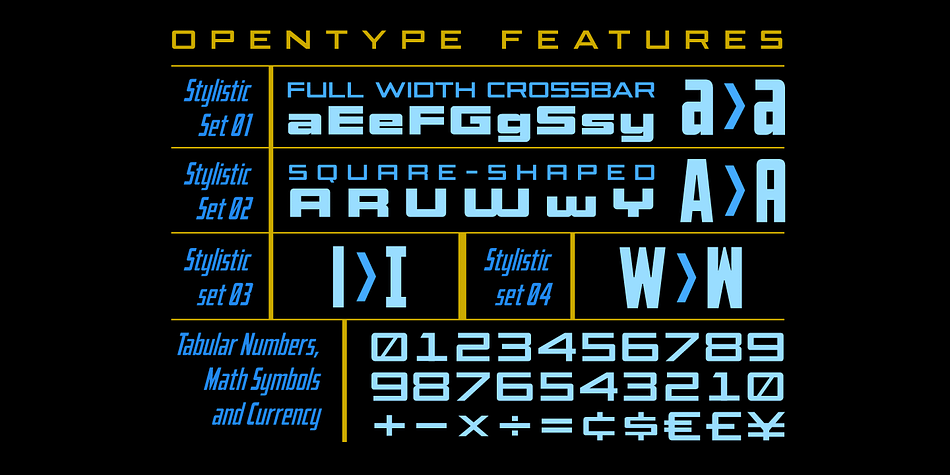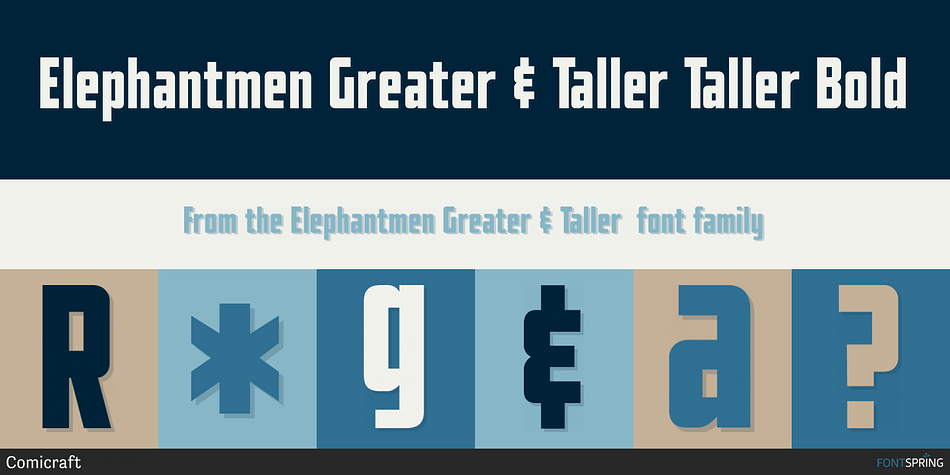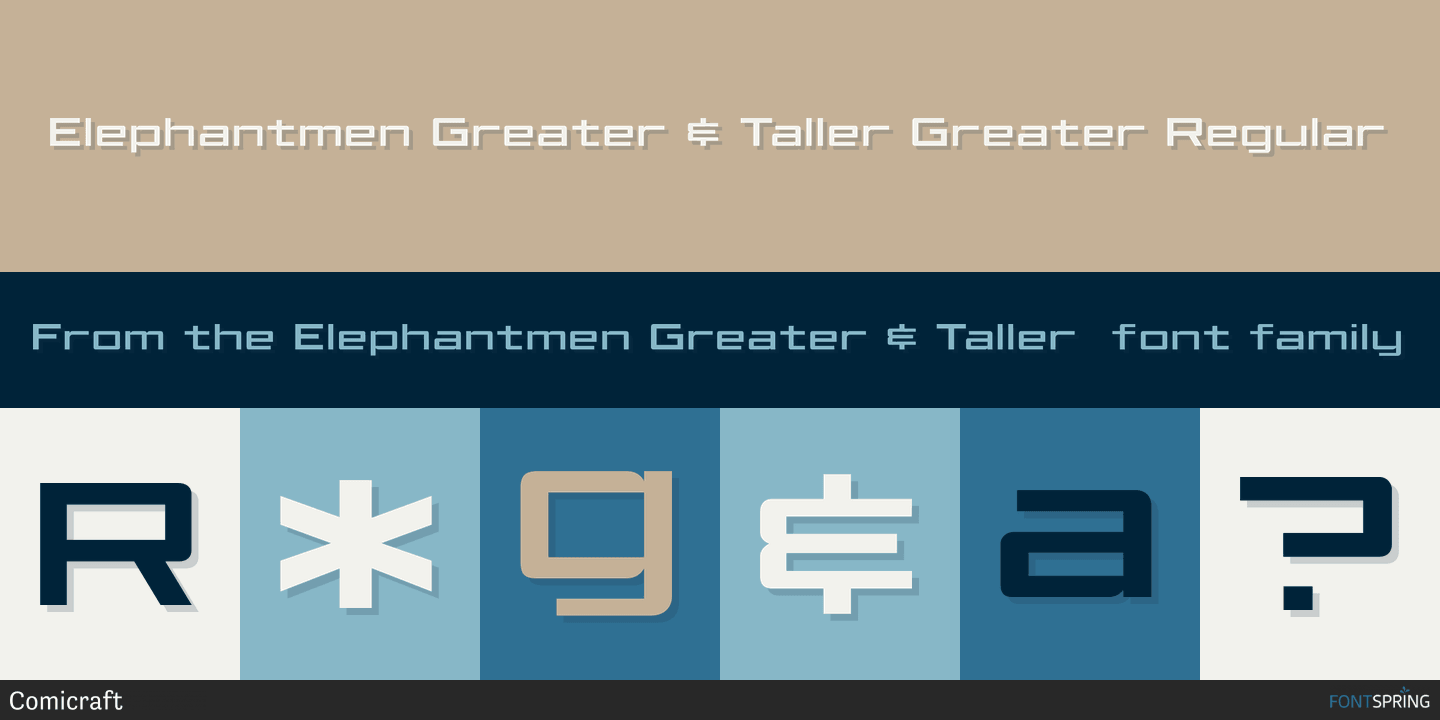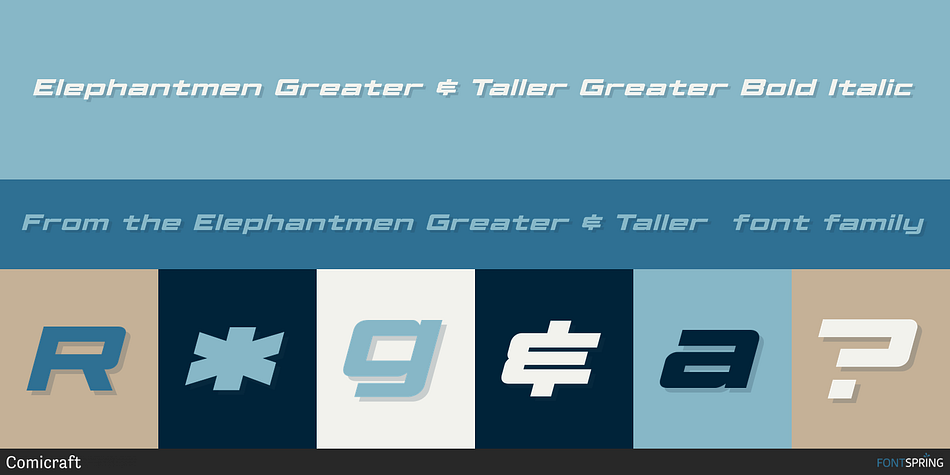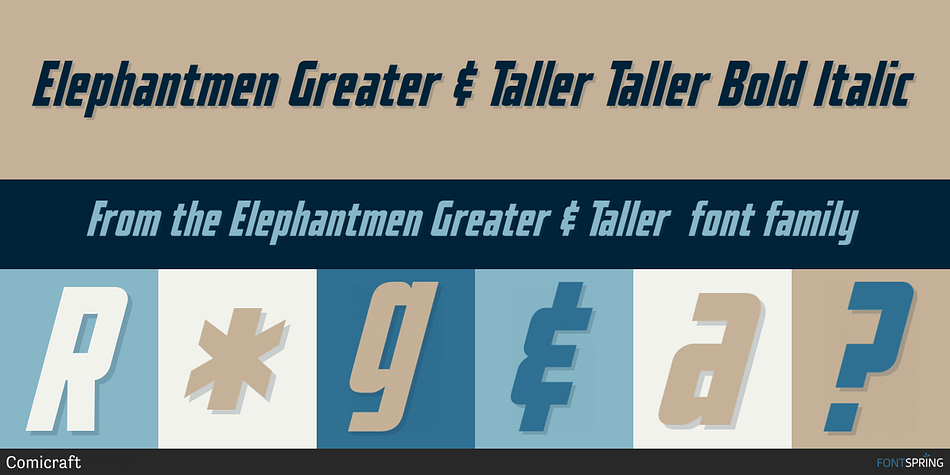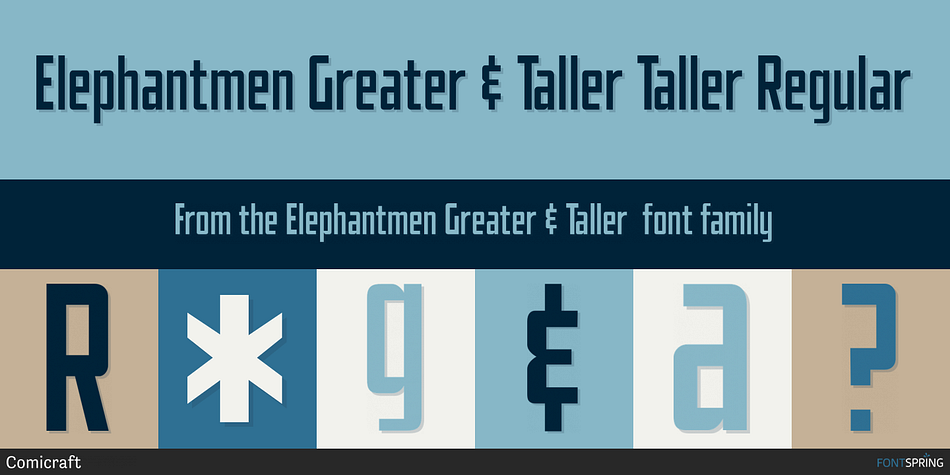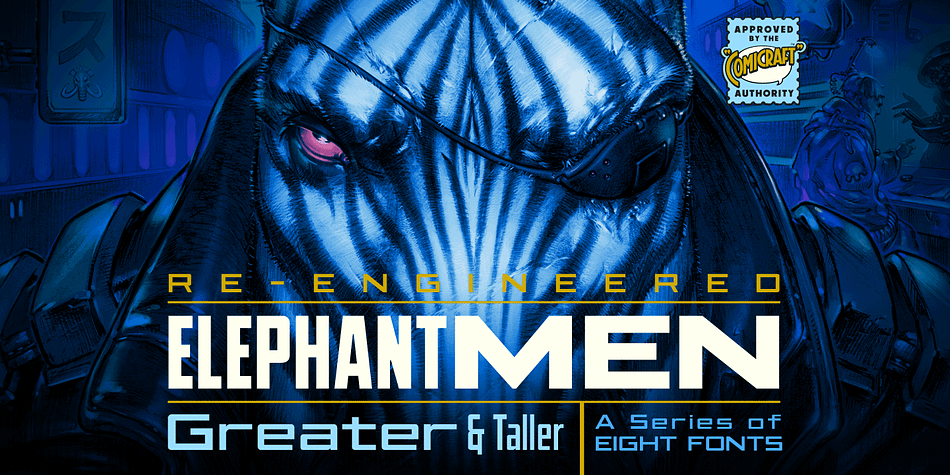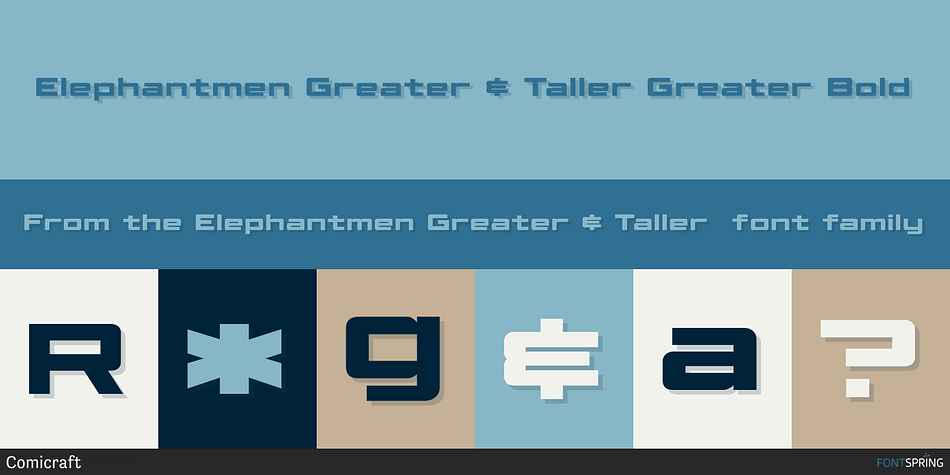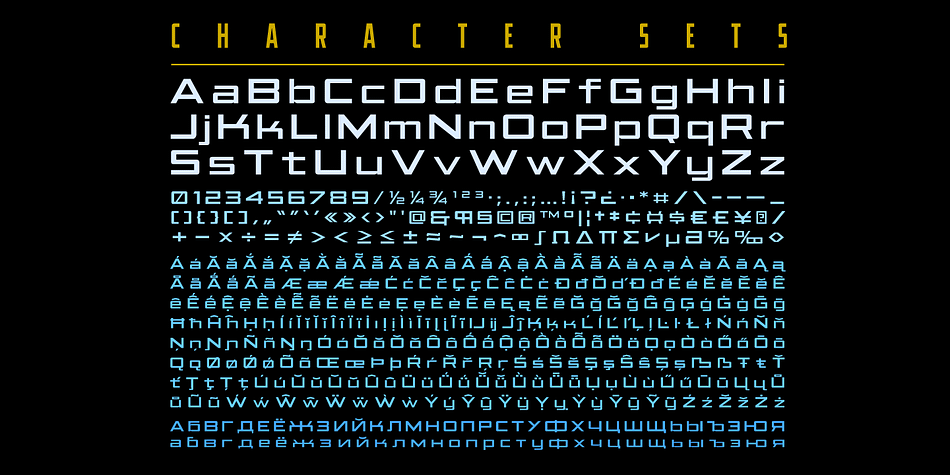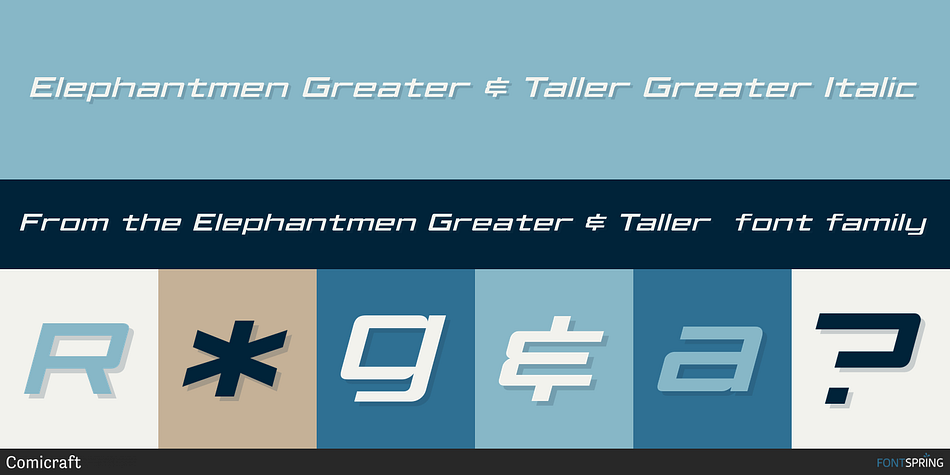
Designed by John Roshell, Elephantmen Greater & Taller is a display font family. This typeface has eight styles and was published by Comicraft.
Roll up! The world’s largest three (letter-)ring circus of Great and Tall Elephantmen fonts is now touring cities and towns in your area! See the amazing exploits of fonts of heretofore unimagined heights and weights!
Gasp as x-heightwire artist John Roshell walks great and tall on the typerope up above your headlines! Look in wonder as Elephantmen get greater and taller on stilts, staggering around with their trunks high in the air as well as loose around their waists! Peer cautiously into the sky as the greatest and tallest Elephantmen disappear into the clouds as they swing up on the trapeze…